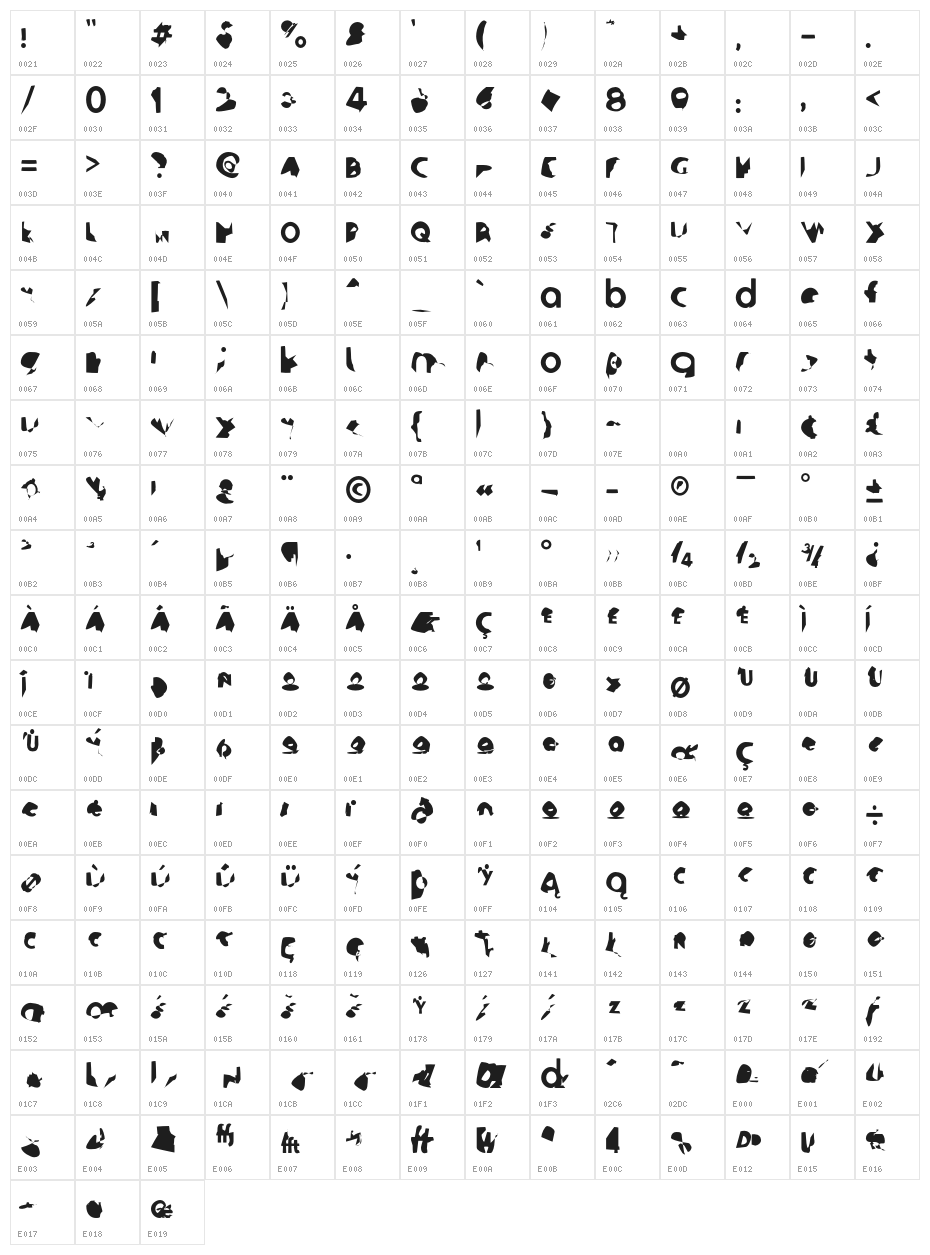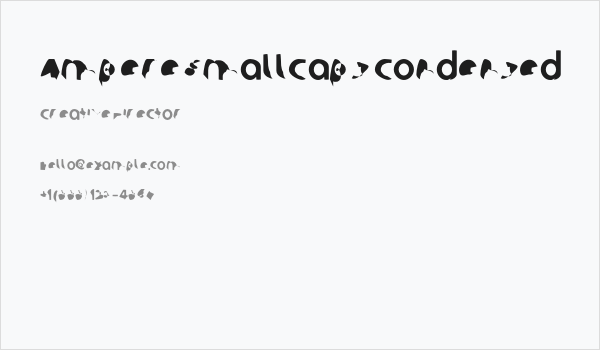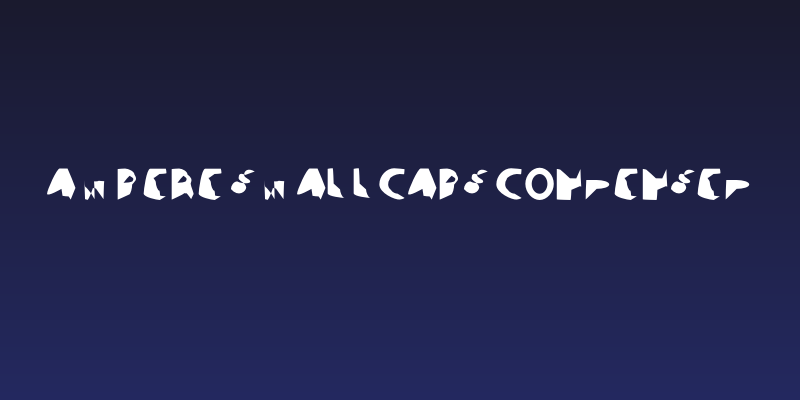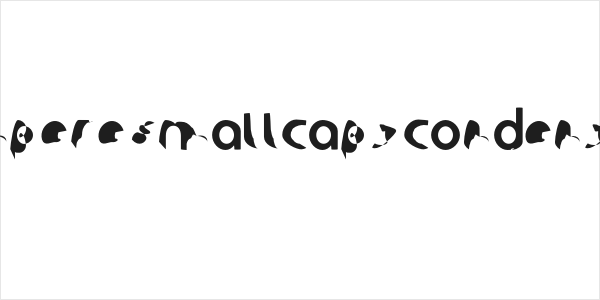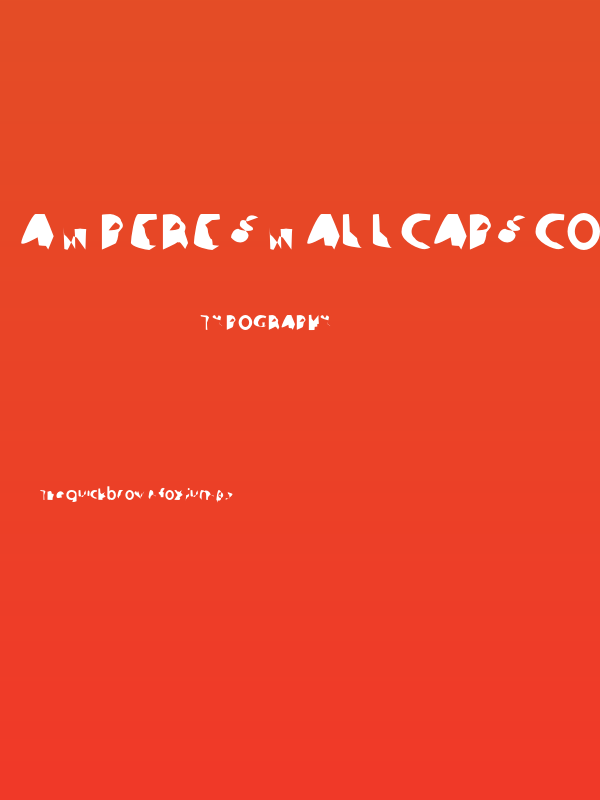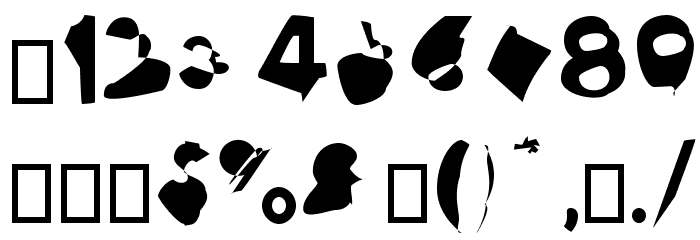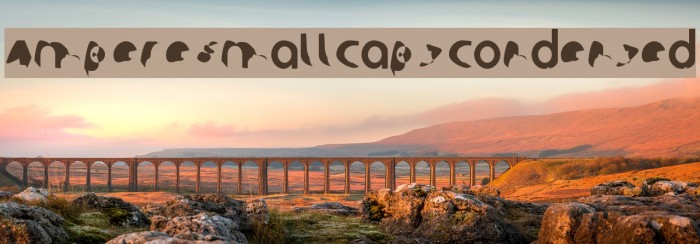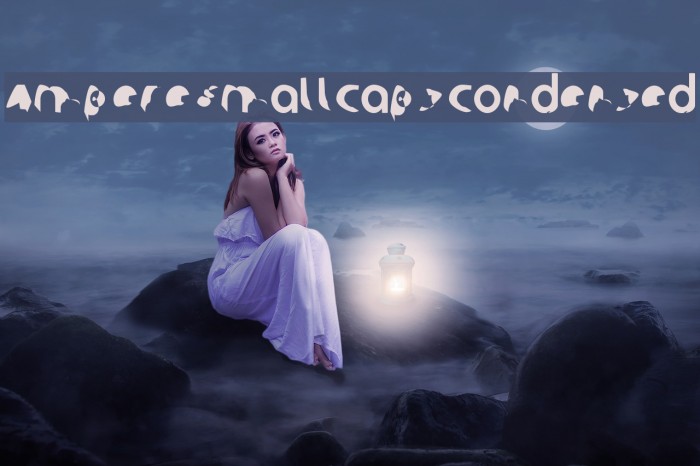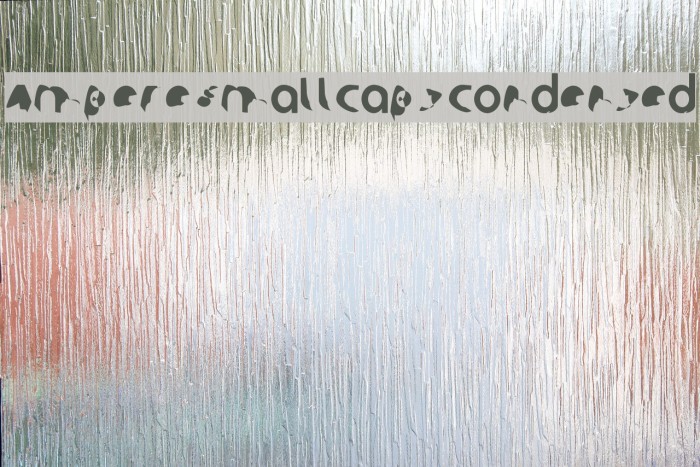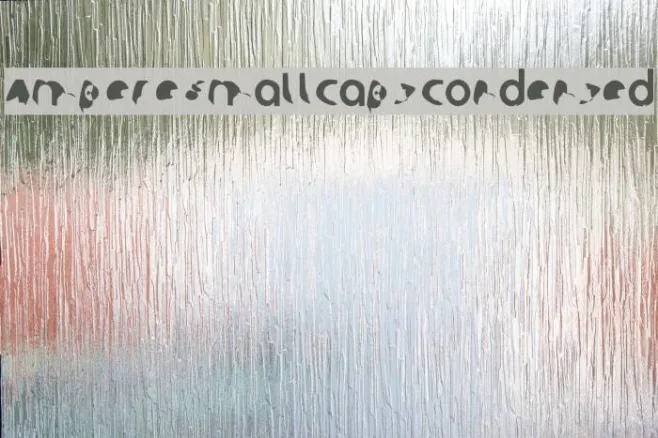
Ampere SmallCaps Condensed Font
Ampere SmallCaps Condensed Description
This font features a highly stylized and abstract design, with each character appearing as if it has been fragmented or shattered. The uppercase and lowercase letters, as well as numbers and special characters, exhibit a unique, artistic distortion that makes them stand out. The overall appearance is bold and impactful, with a condensed width that adds to its striking visual presence. The font's fragmented style gives it a modern and avant-garde feel, making it suitable for creative and unconventional design projects.
| Overall Style | Modern, Avant-Garde |
| Use Case | Headlines, Logos, Artistic Designs |
| Proposed Projects | Ideal for artistic posters, album covers, modern art exhibitions, and edgy branding projects. |